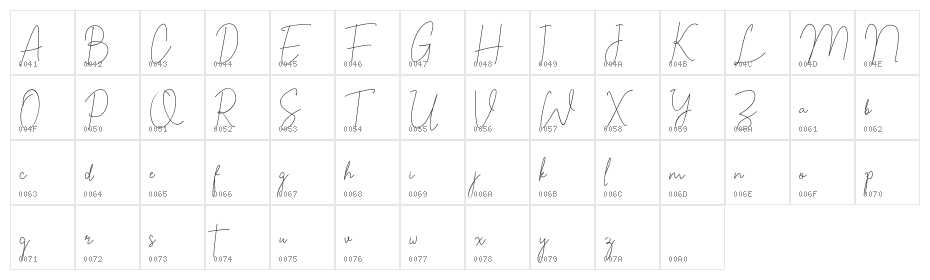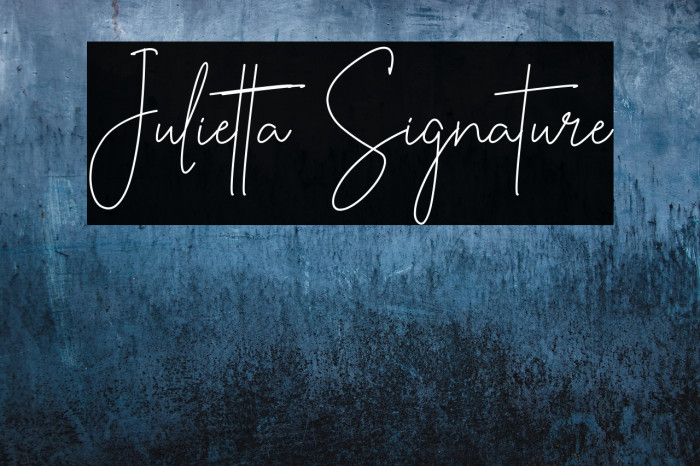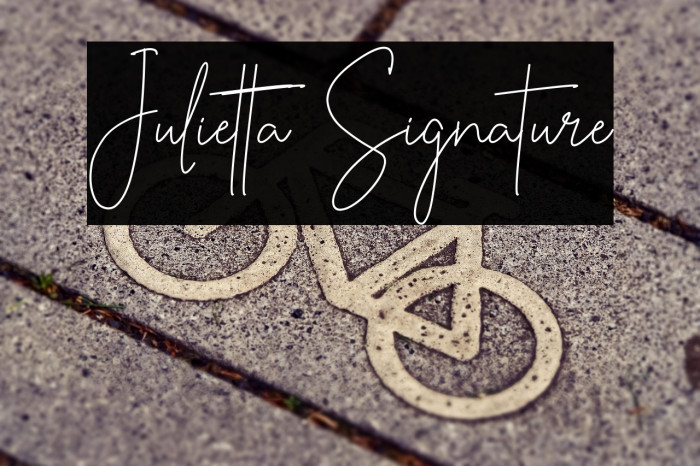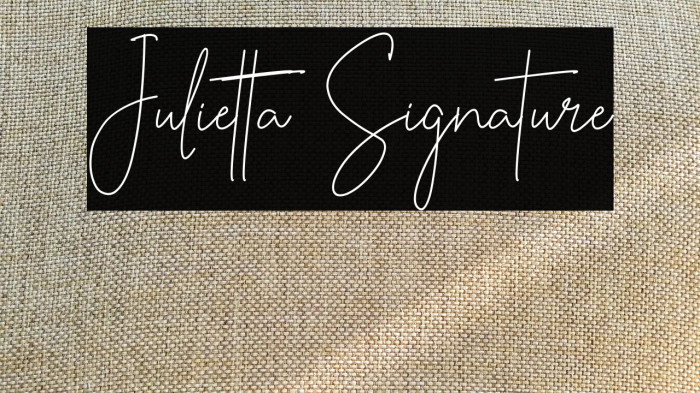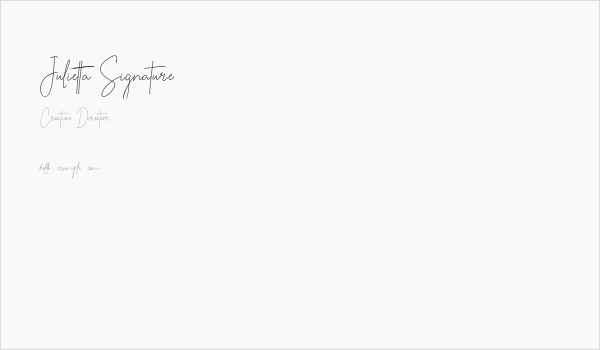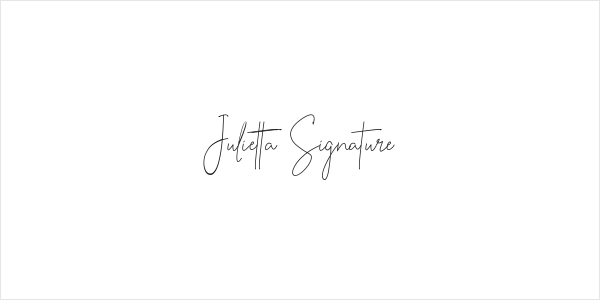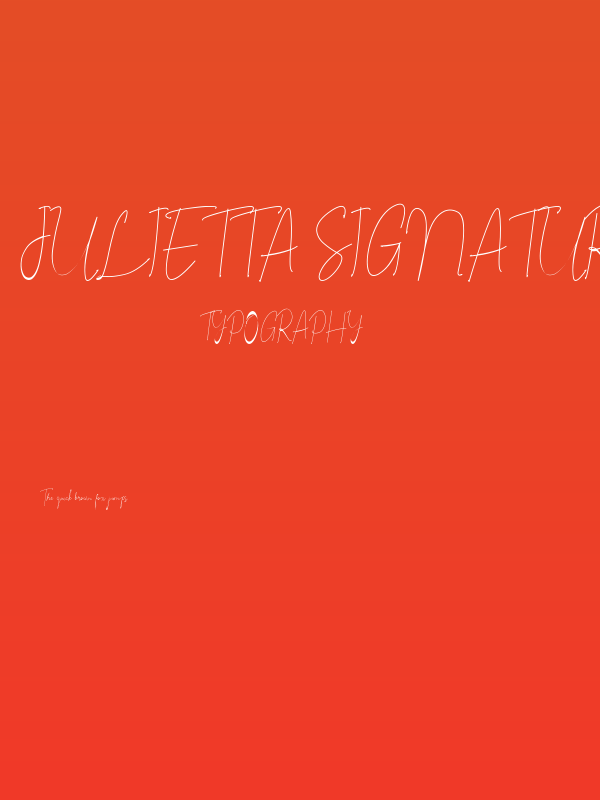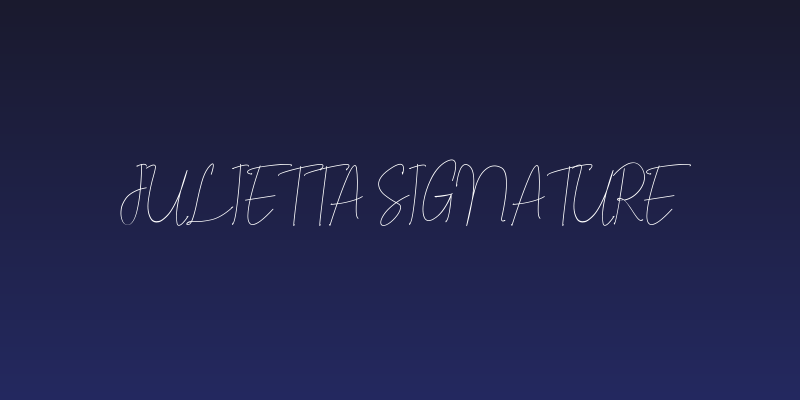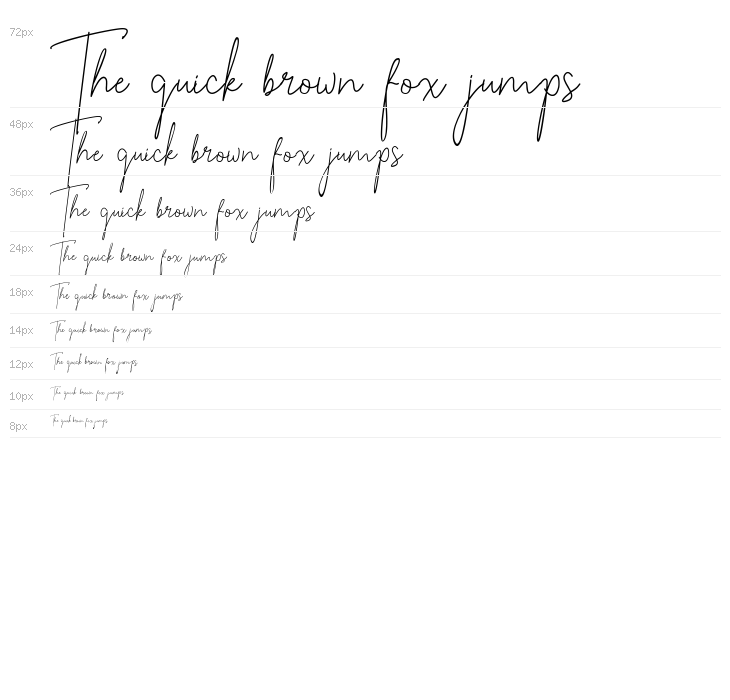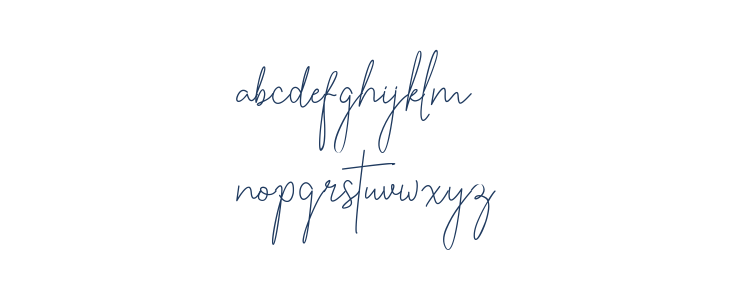
Julietta Signature Font
Julietta Signature Description
This font exudes elegance and sophistication with its flowing, cursive style. The letters are crafted with a delicate touch, featuring thin, graceful strokes that give it a refined and airy appearance. The uppercase letters are tall and slightly elongated, while the lowercase letters maintain a consistent flow, enhancing the script's fluidity. The font's design is reminiscent of a personal signature, making it ideal for adding a personal touch to any project. Its overall aesthetic is both modern and timeless, suitable for a variety of creative applications.
Overall StyleElegant, Modern
Use CaseLogos, Invitations, Personal Branding
Proposed ProjectsIdeal for wedding invitations, branding, personal stationery, and elegant logos.